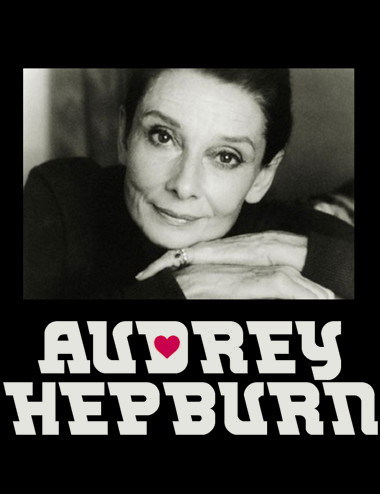
zenequalia eYe/FS
Some alternates, to improve the kern, are at the glyphs a, b, i, l and v. Enjoy.
A very individual design.
This is really cool...great work!
Very unique style. My compliments on such great originality. 10/10 & fav.
This is a very nice concept... realmente genial.
Very successful combination of slant, curve and vertical!
Very pretty face with lots of character. 10/10
@beate & four & Frodo7: Wow! Thank you very very much for your encouraging comments, dear masters! Really, I think this font can work in "classic" environments, and in "new" or "sci-fi" ones too. I add two samples. Hope you like.
Oh yes indeed. I think it's a nice face for all the crazy space cowboys. : )
… very cool.
I like all your demo posters. There is typo in the last one featuring HAL 9000. The correct spelling: Odyssey